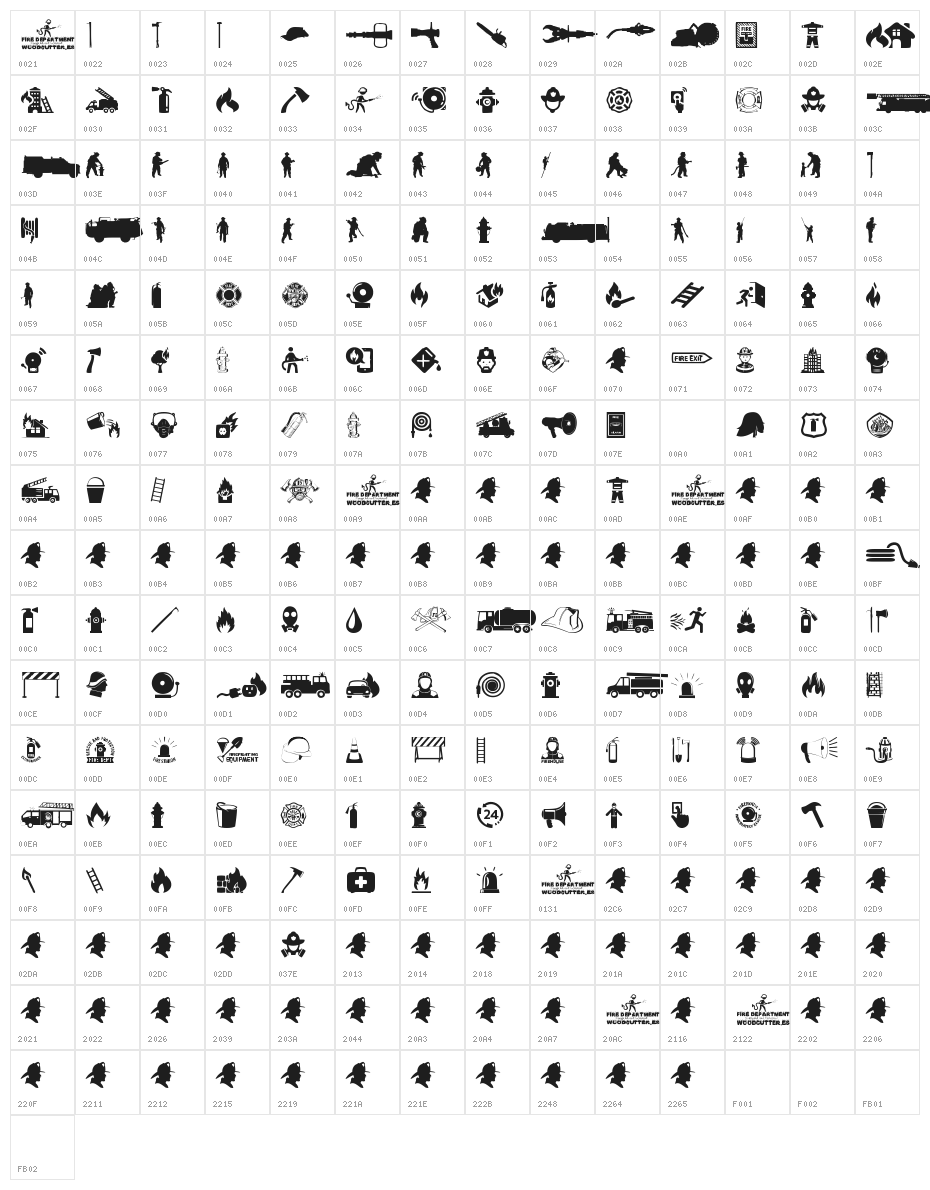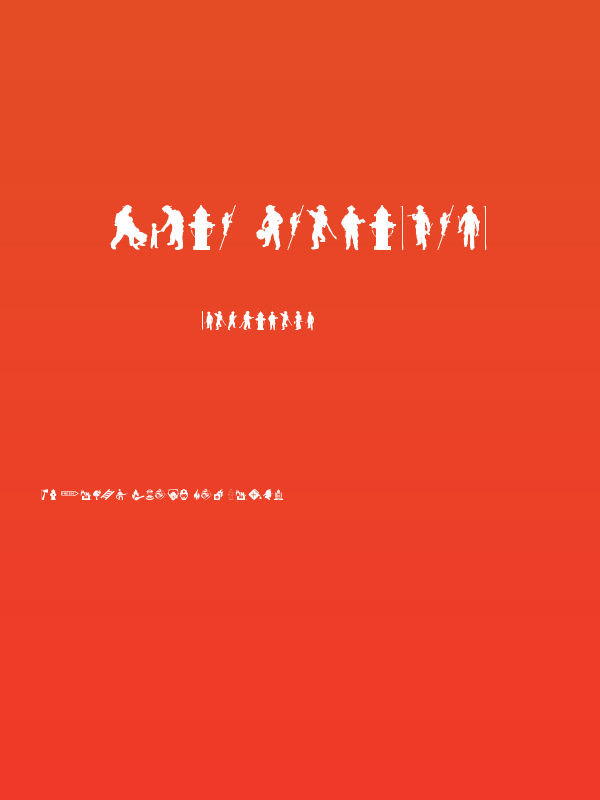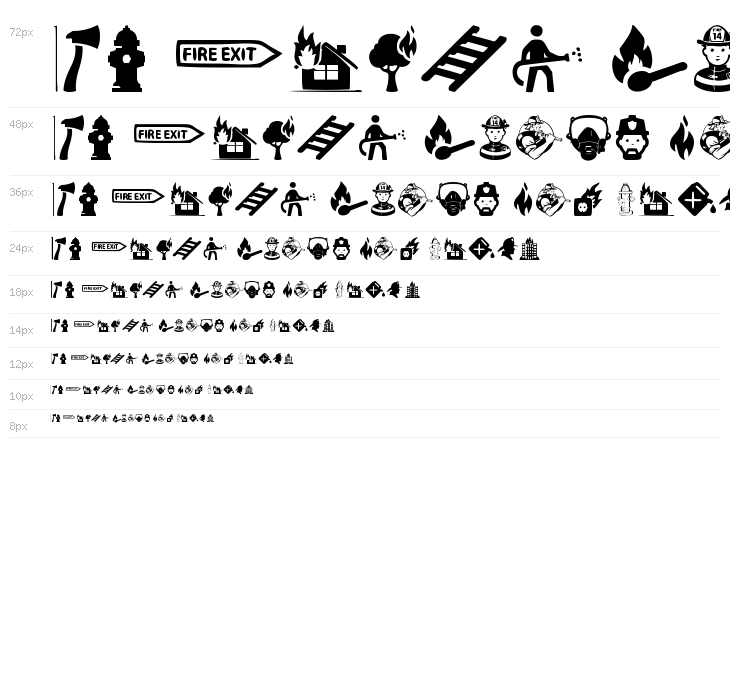
Fire Department Font
Fire Department Description
A pictogram-style dingbat set featuring silhouettes and icons related to firefighting, including firefighters in action, fire trucks, hydrants, axes, flames, safety equipment, and emergency signage. The icons are bold, solid, and highly recognizable, designed for clear visual communication.
Overall StyleDecorative, Thematic, Modern
Use CaseIcons, Signage, Educational graphics, Posters
Proposed ProjectsEmergency signage, safety manuals, educational materials, infographics, fire department branding, instructional posters.